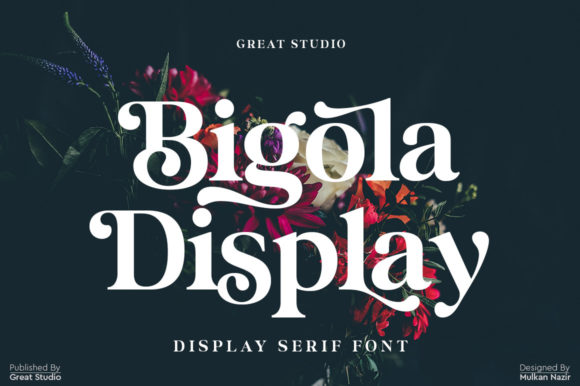
Introducing Bigola Font – The Ultimate Typeface for Unleashing Your Creative Vision
In the realm of streetwear design, where audacity meets attitude, there's a font that commands attention and ignites imagination – Bigola Font. This display font, a creation of the renowned Great Studio, is not just a collection of letters; it's an artistic expression that empowers you to make a statement.
Are you ready to infuse your designs with an aura of boldness, coolness, and urban swagger? Immerse yourself in the world of Bigola Font, where every glyph and swash dances with vitality, inviting you to break the boundaries of convention.
With Bigola Font, you'll discover a font that speaks volumes. Its carefully crafted characters exude a distinct personality, perfect for capturing the essence of streetwear culture. Its PUA encoding ensures effortless access to a treasure trove of glyphs and swashes, unlocking a world of creative possibilities.
Unleash the Power of Bigola Font:
1. Grab Attention with Boldness: Bigola Font's audacious presence demands attention, making your designs impossible to ignore. Let your words scream confidence and make a lasting impression.
2. Infuse Designs with Urban Coolness: Immerse your creations in the heart of streetwear with Bigola Font. Its trendy lettered style captures the essence of urban fashion, giving your designs an authentic edge.
3. Speak Volumes with Every Glyph: Each meticulously designed glyph in Bigola Font carries a story, adding depth and character to your designs. Express your message with clarity and impact.
4. Seamless Swashes for Creative Flair: Elevate your designs with the artistic swashes of Bigola Font. These elegant flourishes add a touch of sophistication, transforming your words into works of art.